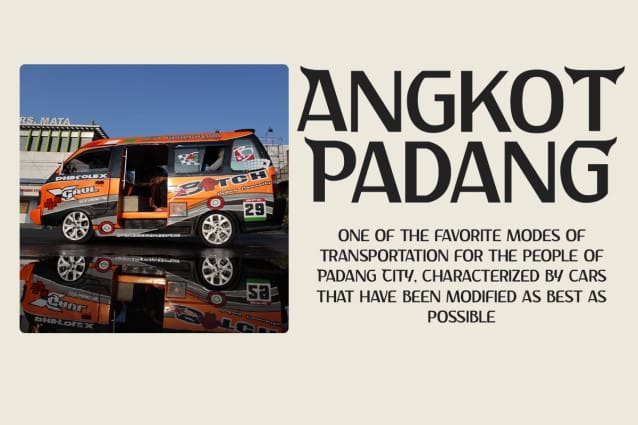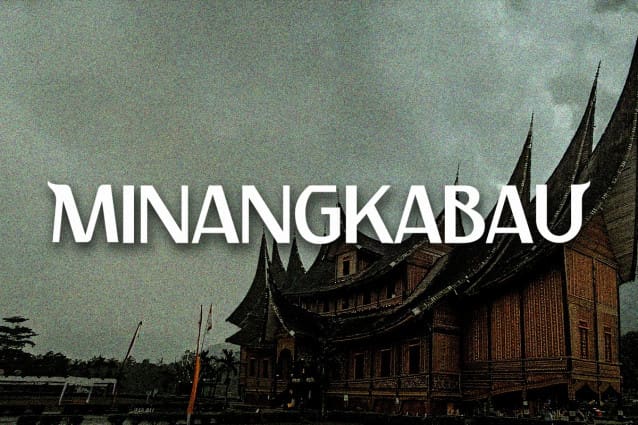
Minangkabau Font
Minangkabau Font, It would be a perfect choice to design posters, affiches, logos, t-shirt and magazine prints, eye-pleasing typographic designs and more.